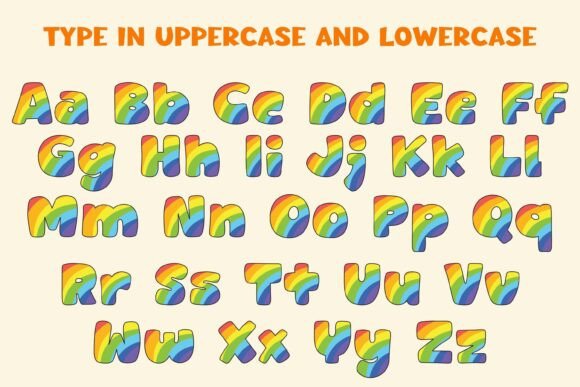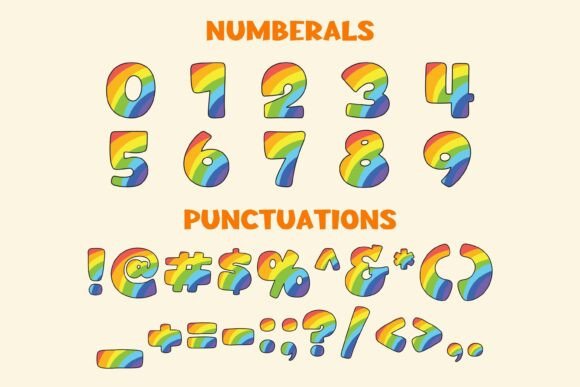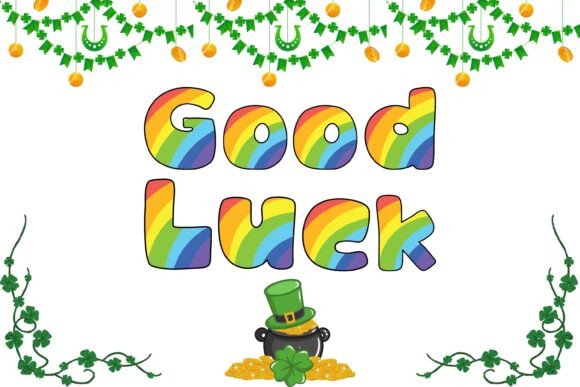
Introduction to Saint Rainbow Font
Introducing Saint Rainbow, a vivid and playful color font that brings a touch of enchantment to every St.
Patrickโs Day-themed design Its captivating character effortlessly melds with t-shirt designs, digital imprints, craft creations, decorative cards, and extensive projects.
Key Features of Saint Rainbow Font
Why Choose Saint Rainbow Font?